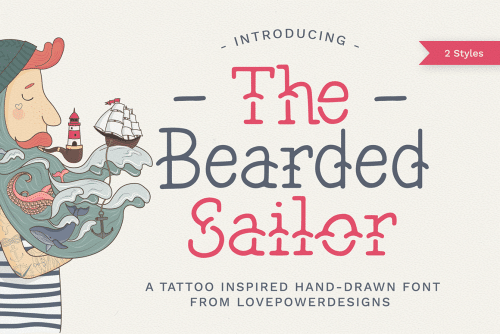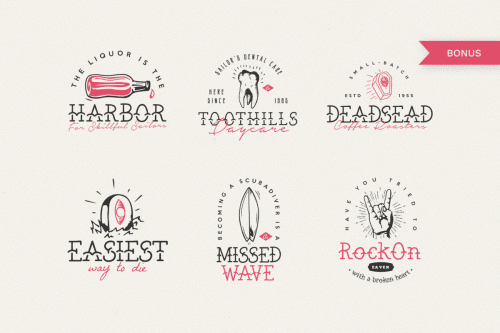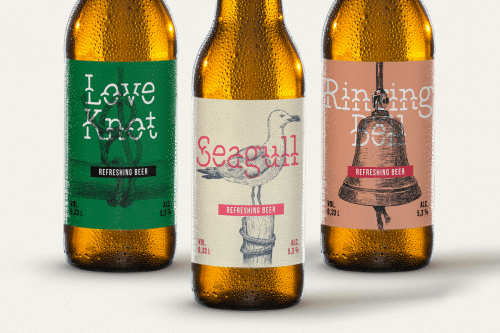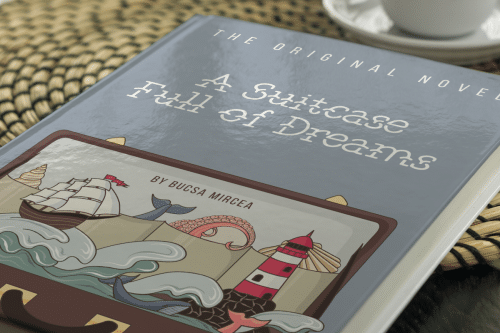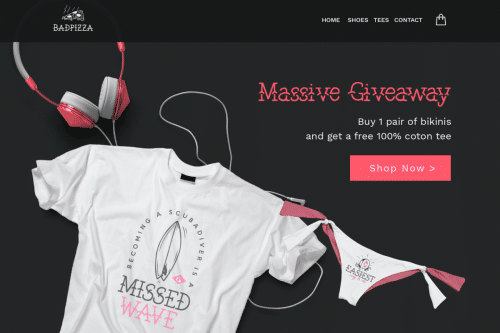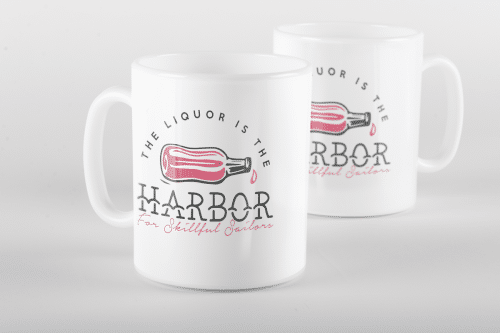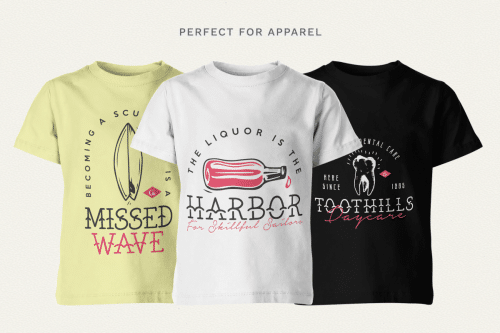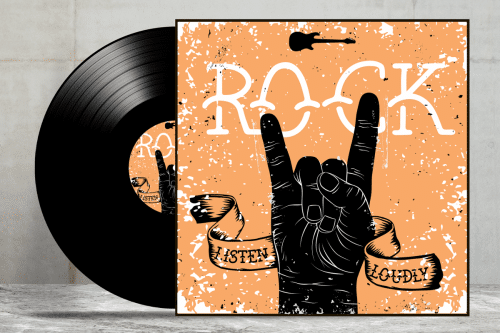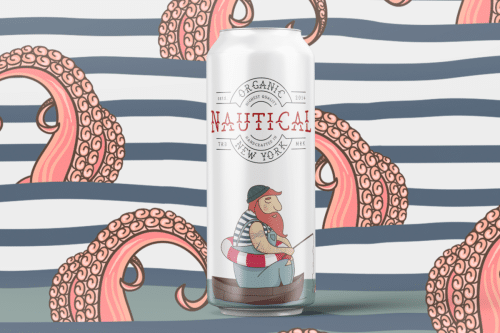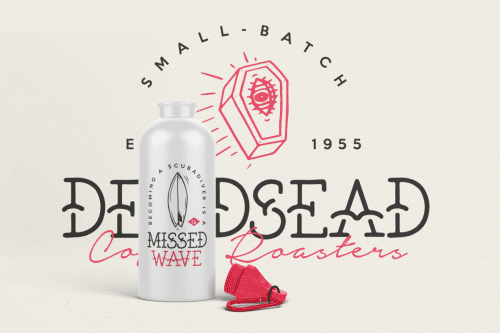
The Bearded Sailor Font
Meet “The Bearded Sailor”
A font-family inspired by the old-style tattoos that early explorers, the early sailors were having. It has a vintage feel with a more modern day approach.
This Font is created using Procreate app, Adobe Illustrator and Photoshop. It is an informal hand-drawn font, rounded, that works perfectly with script and sans serif fonts enabling you to create beautiful logo and type lockups.
It cames in two styles, so you can use the regular style to give your artwork a more clean look and feel or the shadow style to take on the more vintage old-style. This family is great for display use on badges, posters, packaging, editorial and logos.